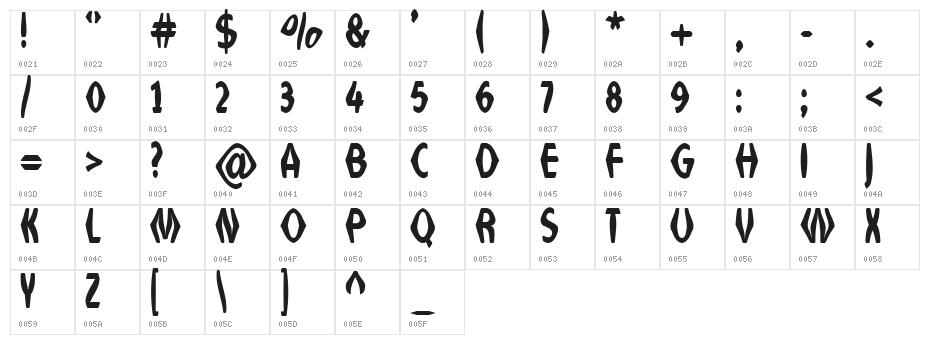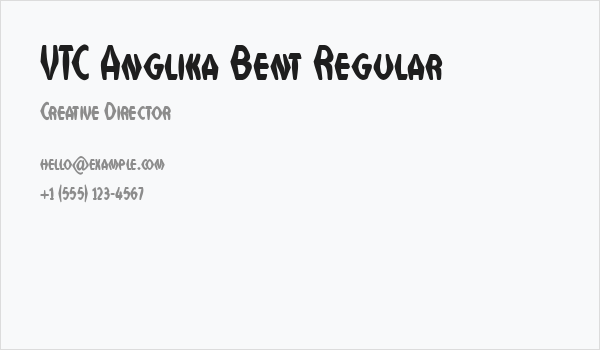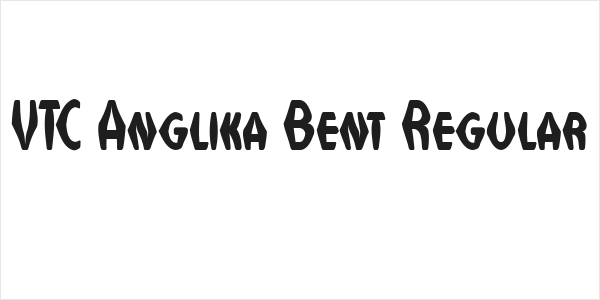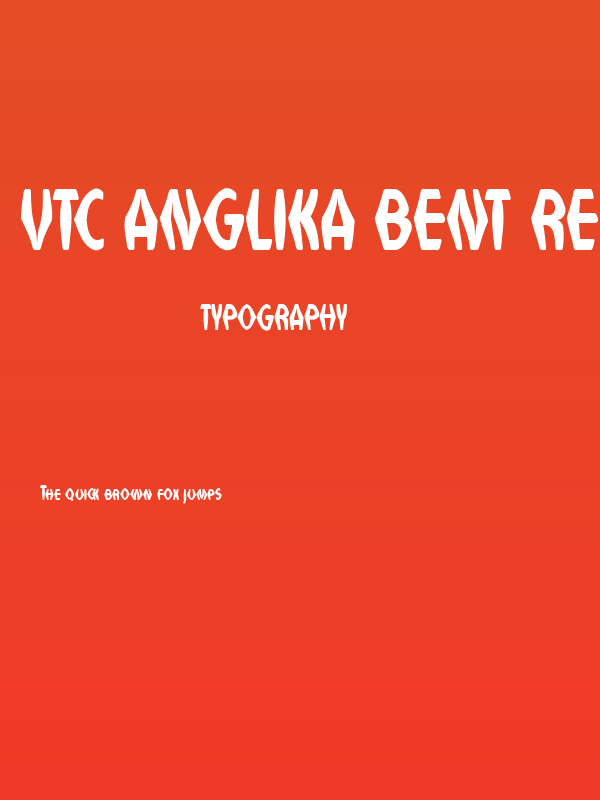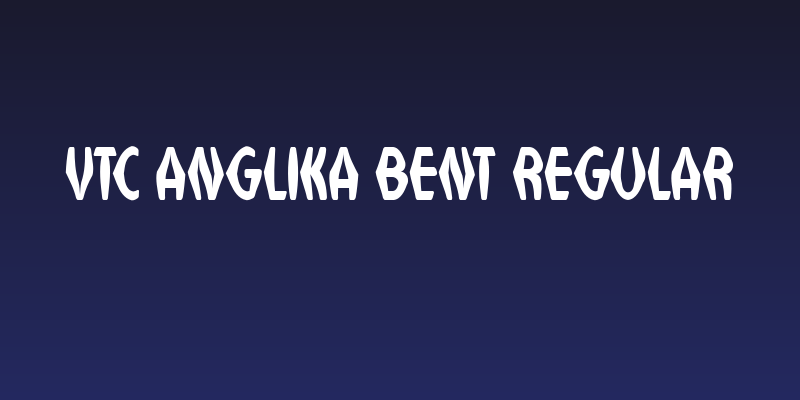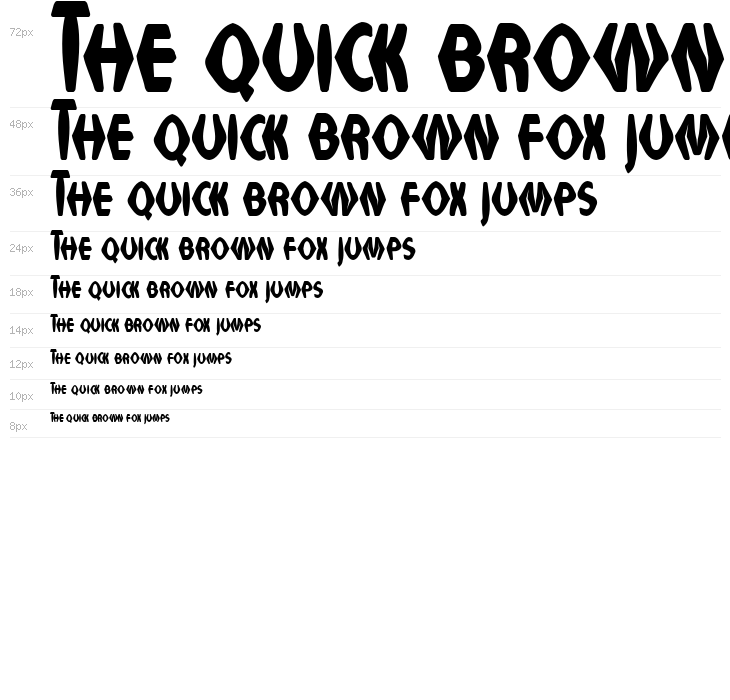
VTC Anglika Bent Regular Font
VTC Anglika Bent Regular Description
This font features a bold and dynamic style with a playful, hand-drawn appearance. The characters have a unique, slightly distorted shape that gives them a whimsical and artistic flair. The strokes are thick and consistent, creating a strong visual impact. The uppercase and lowercase letters maintain a cohesive look, while the numbers and special characters complement the overall design. This font's distinctive style makes it suitable for creative and expressive projects.
| Proposed Projects | Ideal for posters, album covers, children's books, and creative branding. |